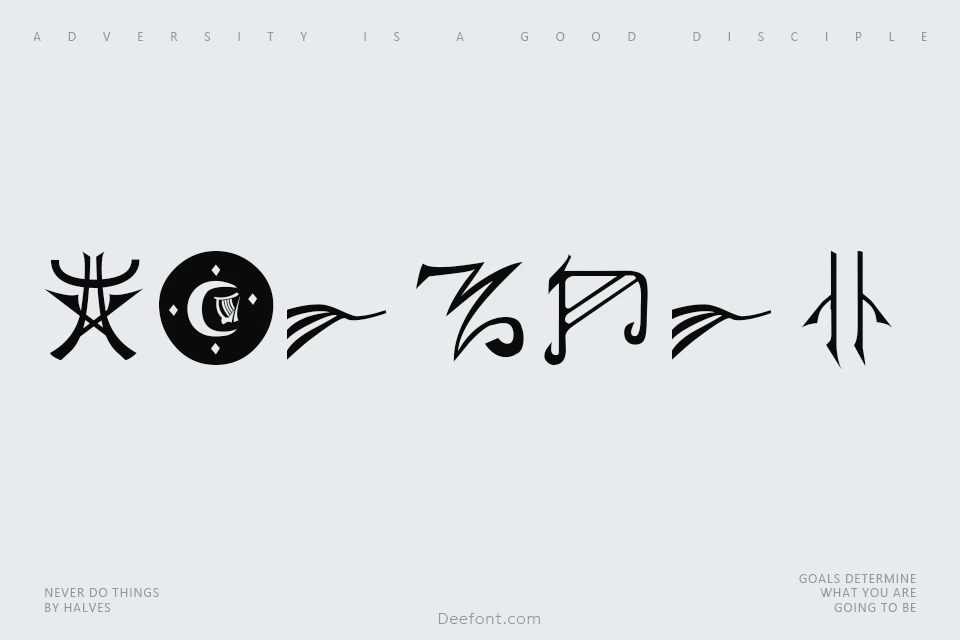
Harpers Font
Harpers is based on the signage fount in TSR Inc’s, Forgotten Realms box set for dungeons and Dragons second edition. Not a script per se, these runes are actually markers designed to help guide knowledgeable Harpers through rough and dangerous terrain. Includes 26 runes based on those found in the box set.